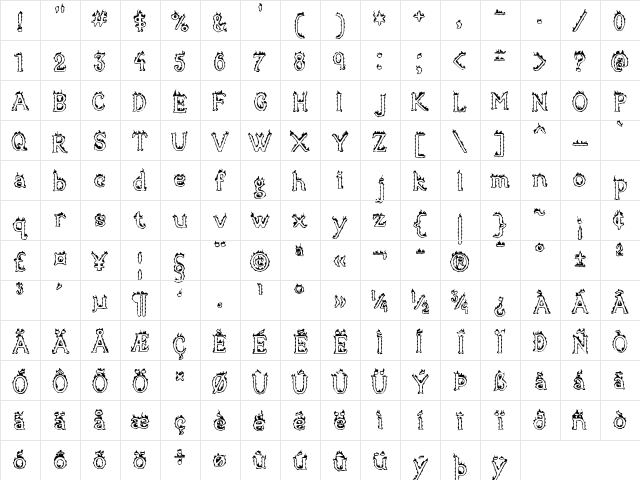
Open Flame Regular
| Designer | Walter E Stewart |
Design Context for Open Flame Typeface
Open Flame is a composed and adaptable typeface that performs quietly and consistently across a wide range of design contexts.